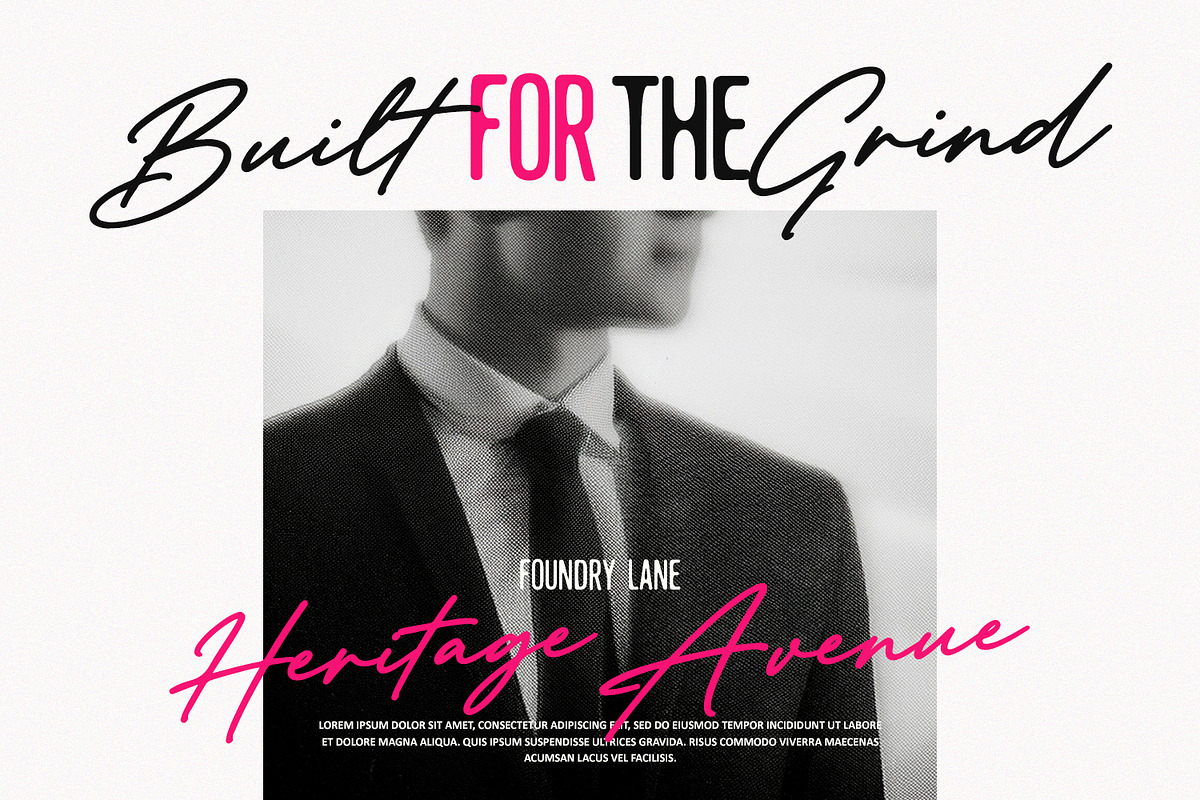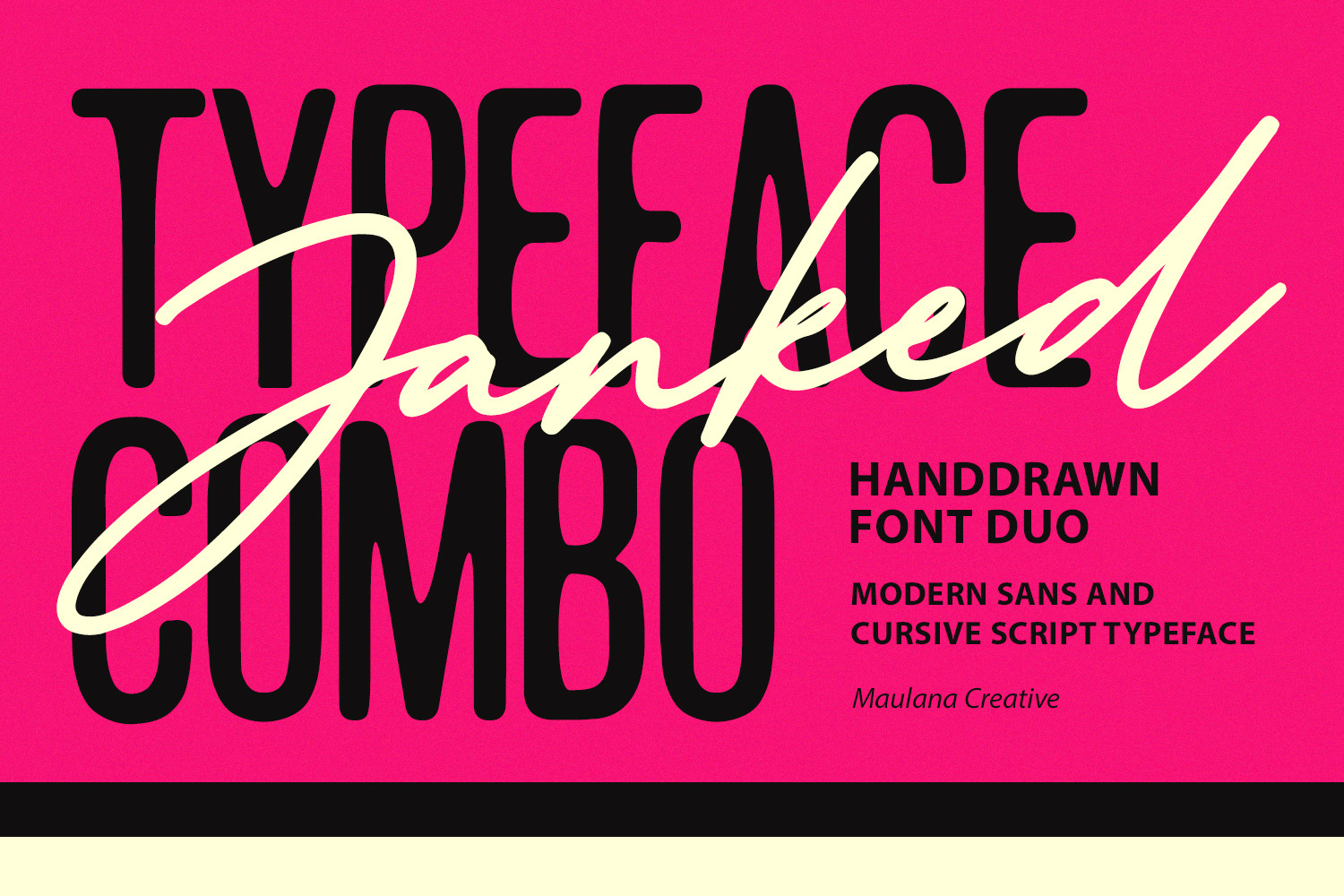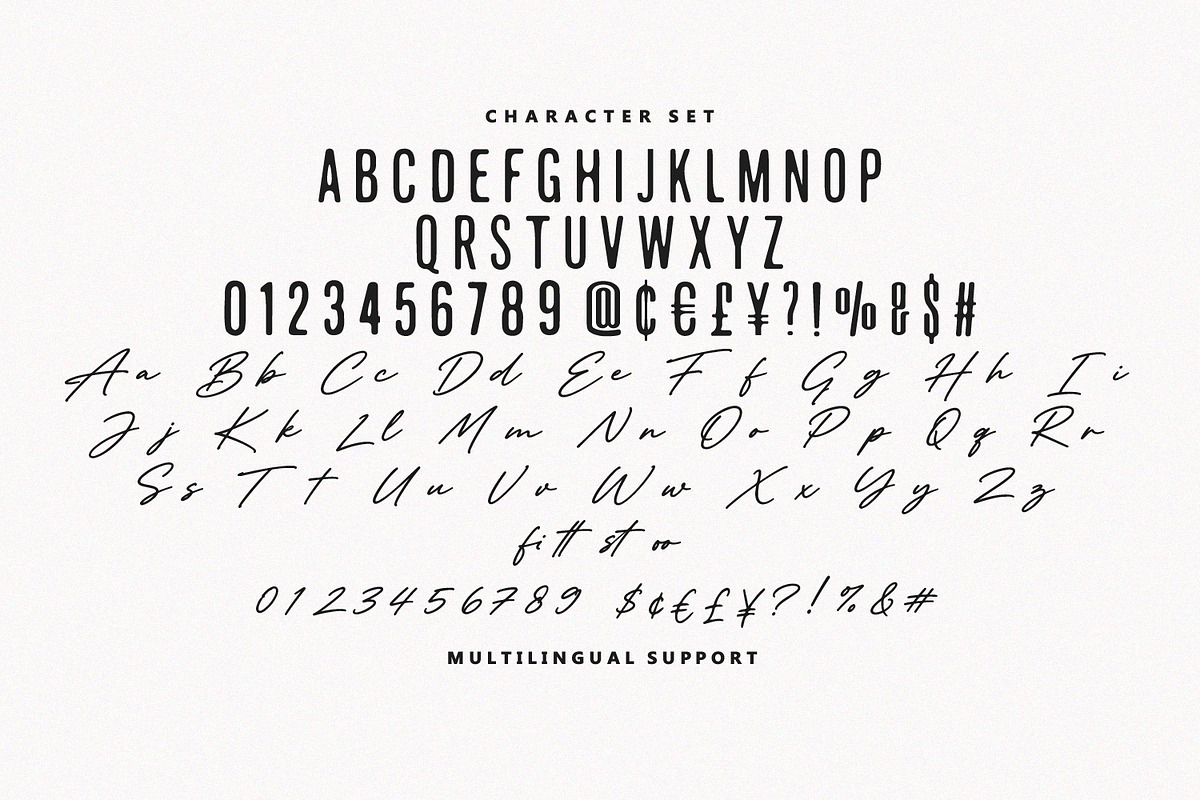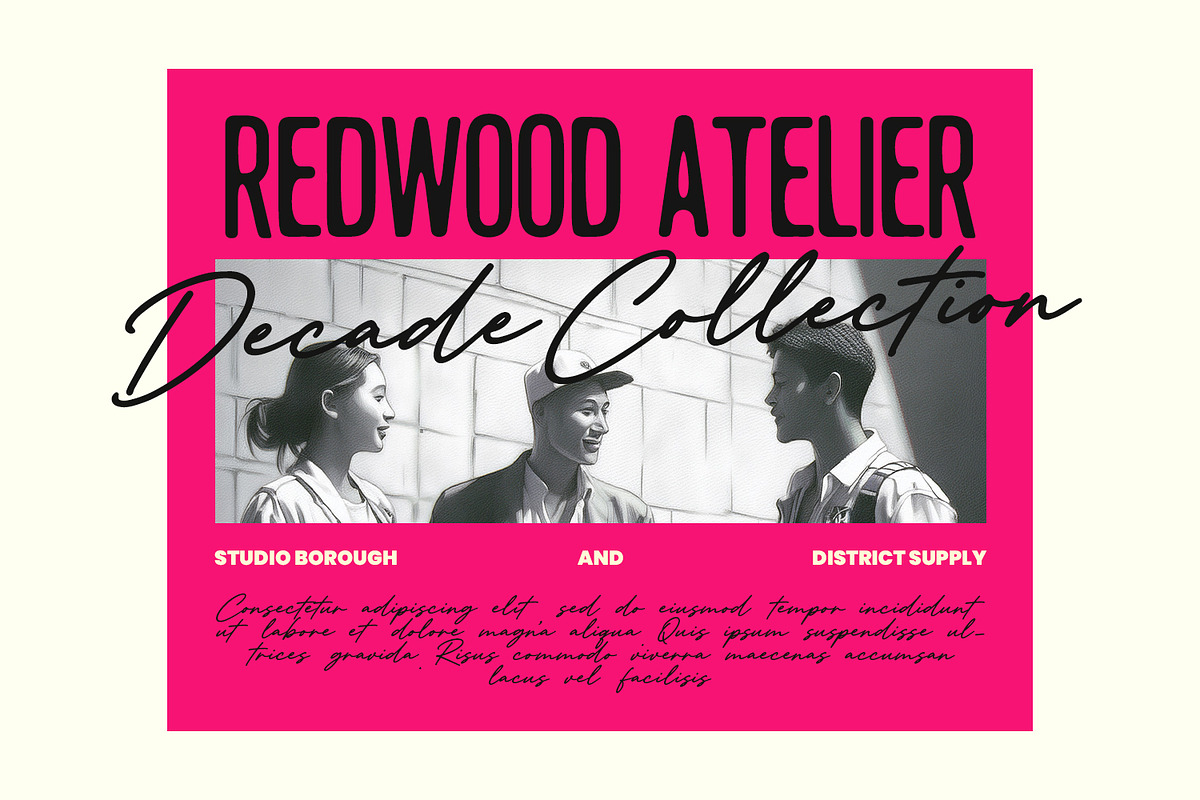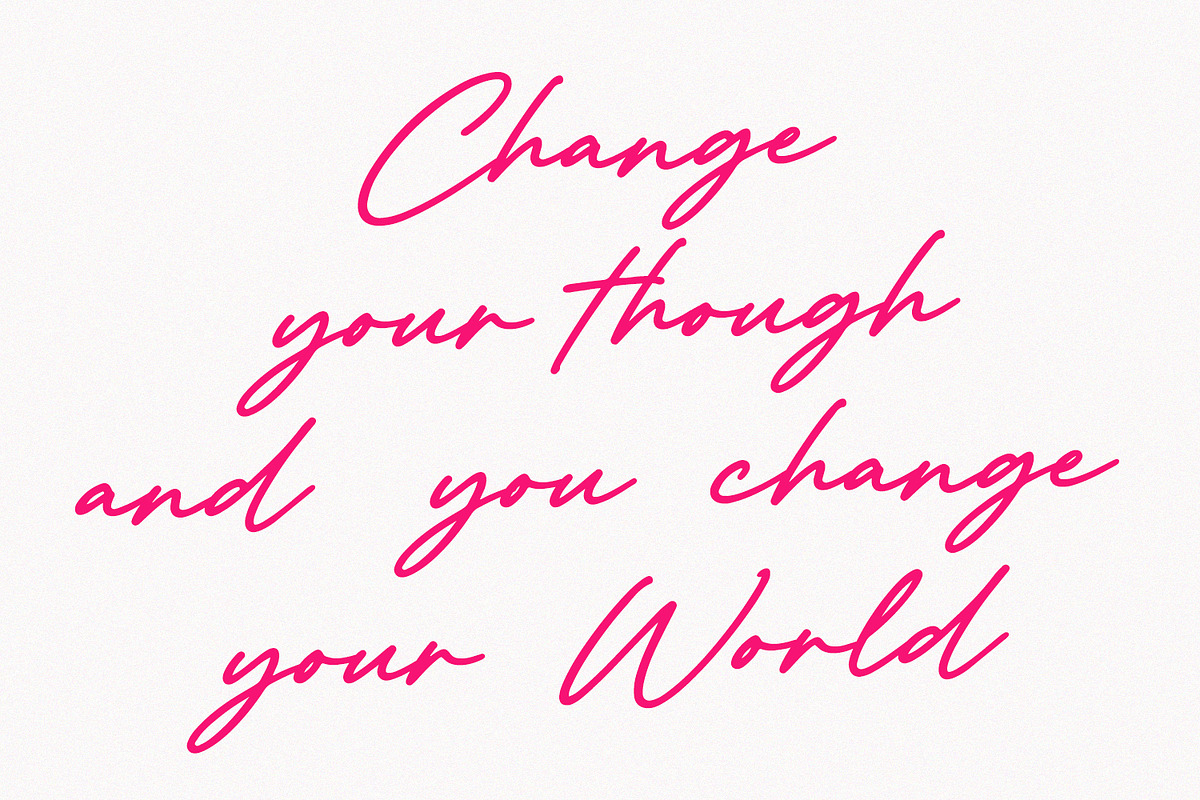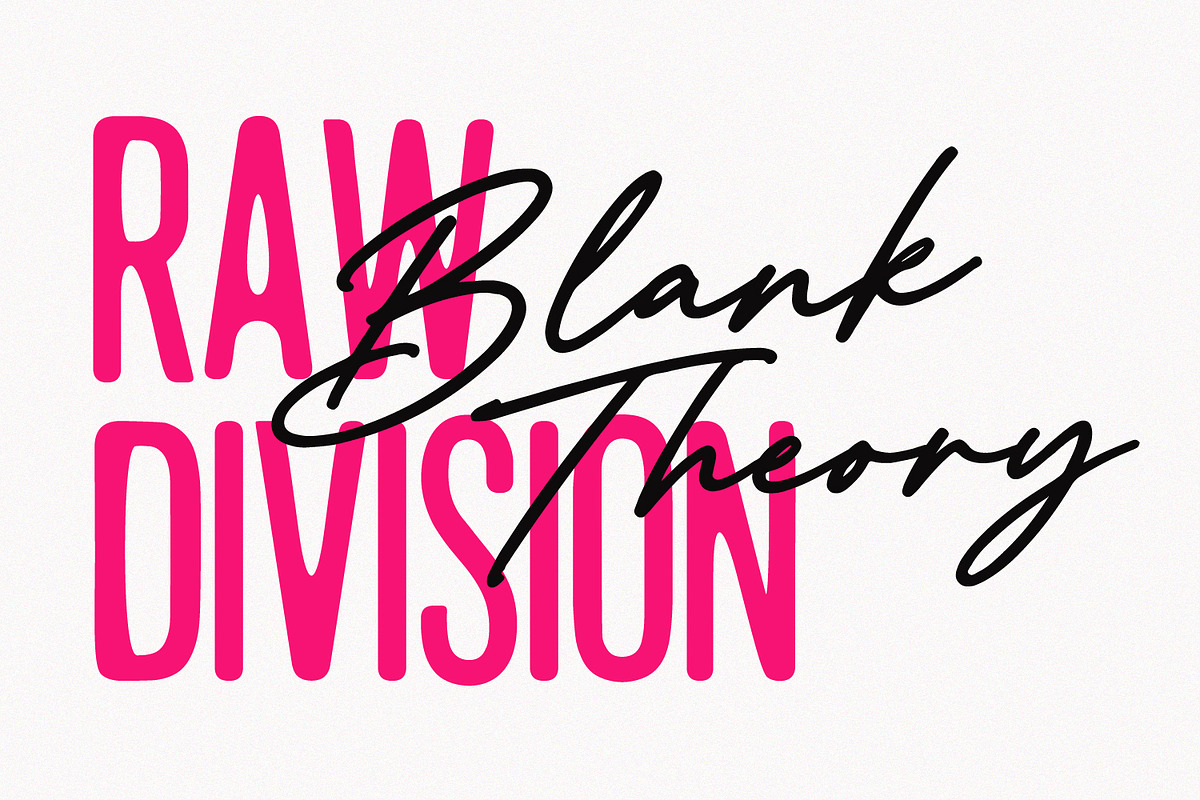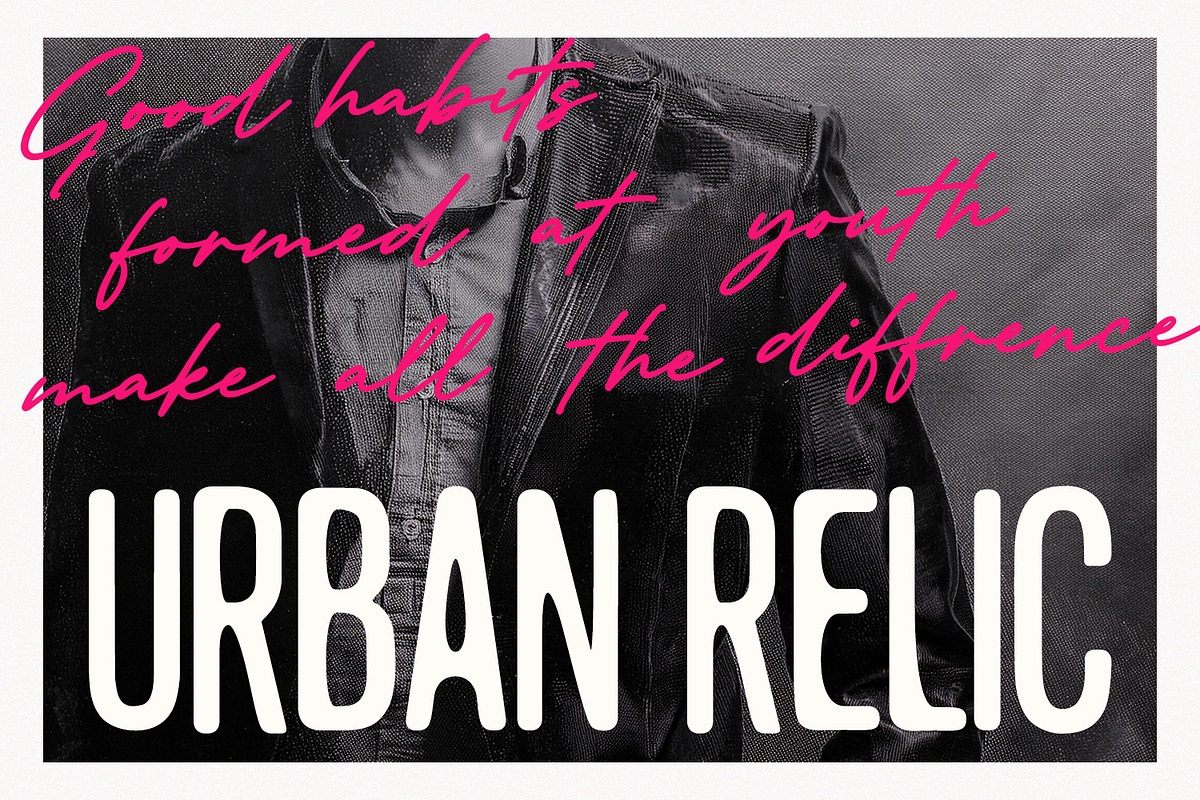
Janked Font Duo Sans Script
Janked Handdrawn Font Duo Modern Sans Cursive Script Typeface
Janked is a versatile font duo combining a clean, tall condensed sans-serif with an expressive hand-drawn cursive script. Designed for strong contrast, this pairing allows bold headlines to seamlessly blend with organic, fluid calligraphy, creating dynamic typographic compositions for branding projects, editorial layouts, logo design, packaging, social media graphics, and promotional materials.
Featuring full uppercase, lowercase, numerical, and punctuation character sets alongside multilingual support, this dual typeface provides maximum flexibility for creative visual storytelling. The structured sans-serif establishes clarity and hierarchy, while the flowing script adds movement, modern style, and a custom handmade aesthetic to any digital layout.
Ligature and Alternate